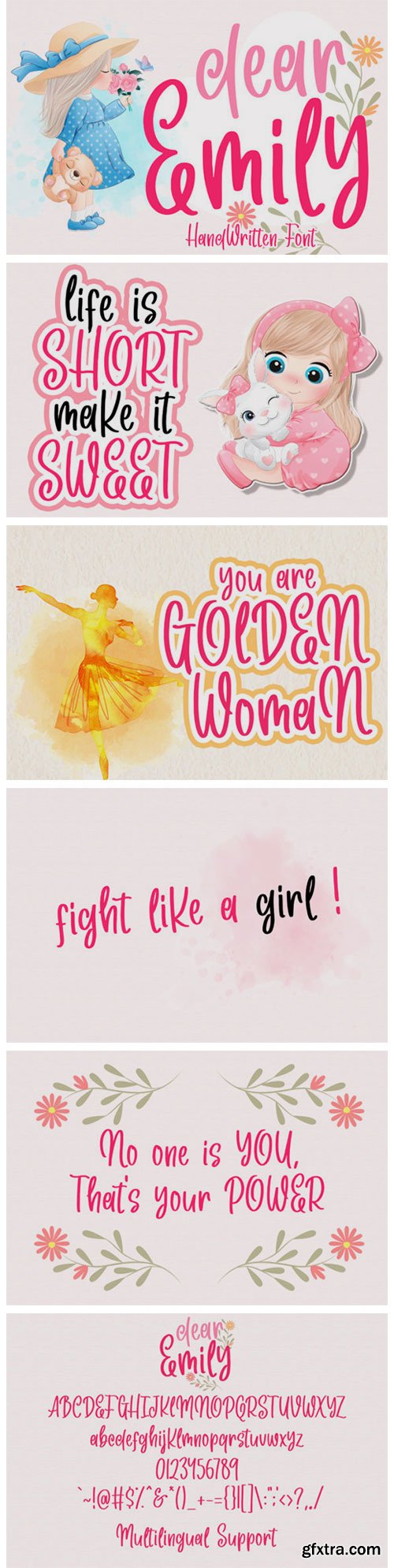
Dear Emily Font
Dear Emily is a flowing handwritten font, described by an elegant touch, perfect for your favorite projects. Fall in love with its incredibly distinct and timeless style and use it to create spectacular designs!